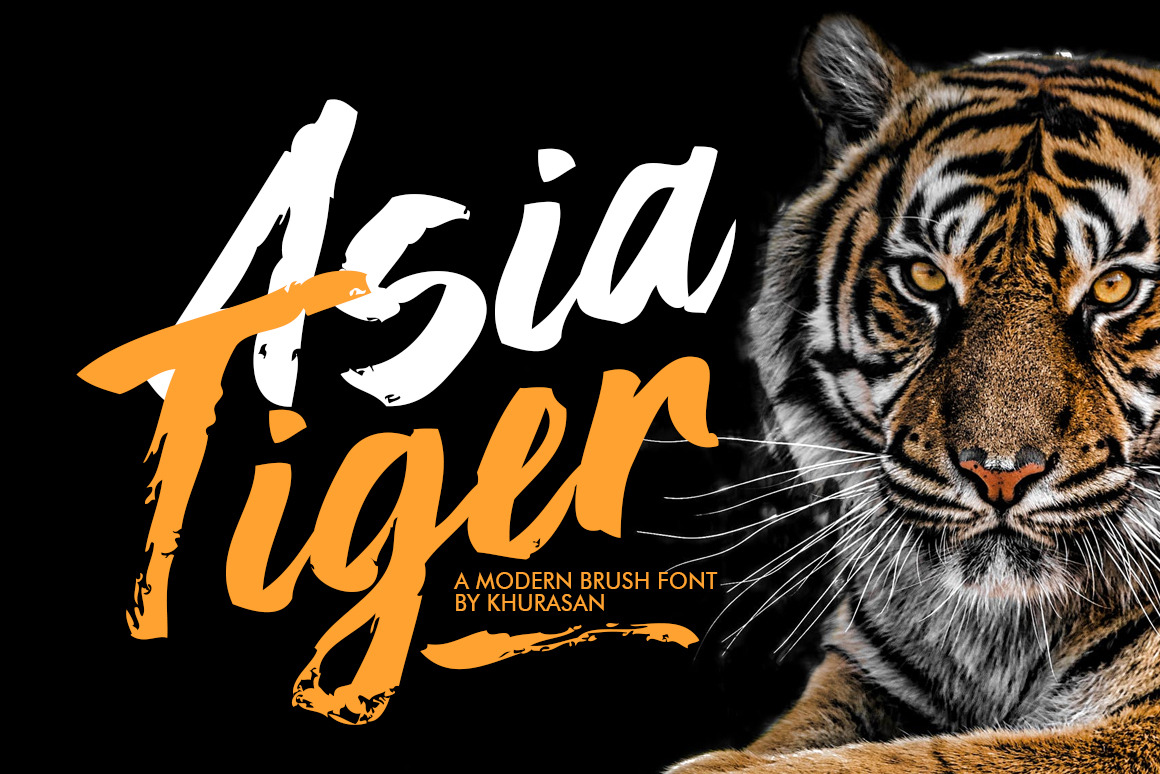
Asia Tiger Brush Font
The Asia Tiger is a fresh modern script font, elegant and modern feel character set. The Asia Tiger font includes a full set capital and lowercase letters, as well as multi-lingual support, swashes, numerals, & punctuation.
- Numeral & punctuation
- Multilingual support for; ä ö ü Ä Ö Ü ß ¿ ¡ & more